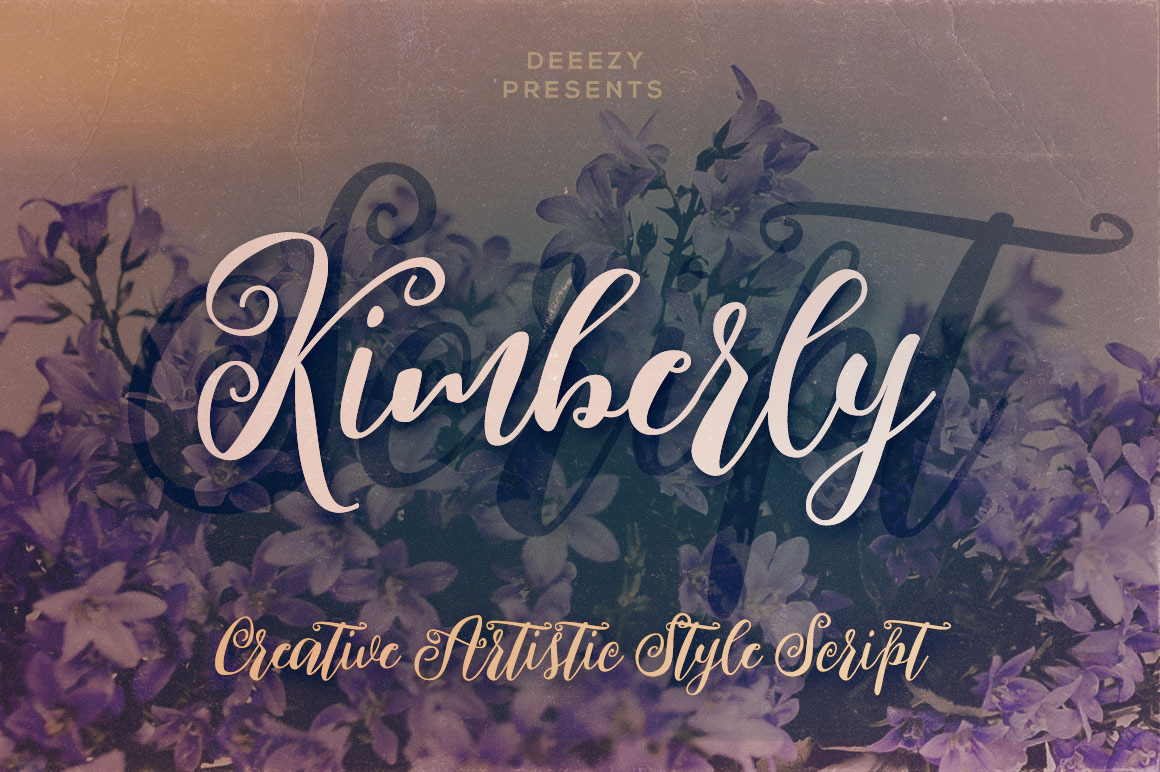
Bold and handwritten or dancing baseline bold style script font for your new projects. With multi language support and lot of stylistic alternates. Enjoy ;)
Kimberly Script Font